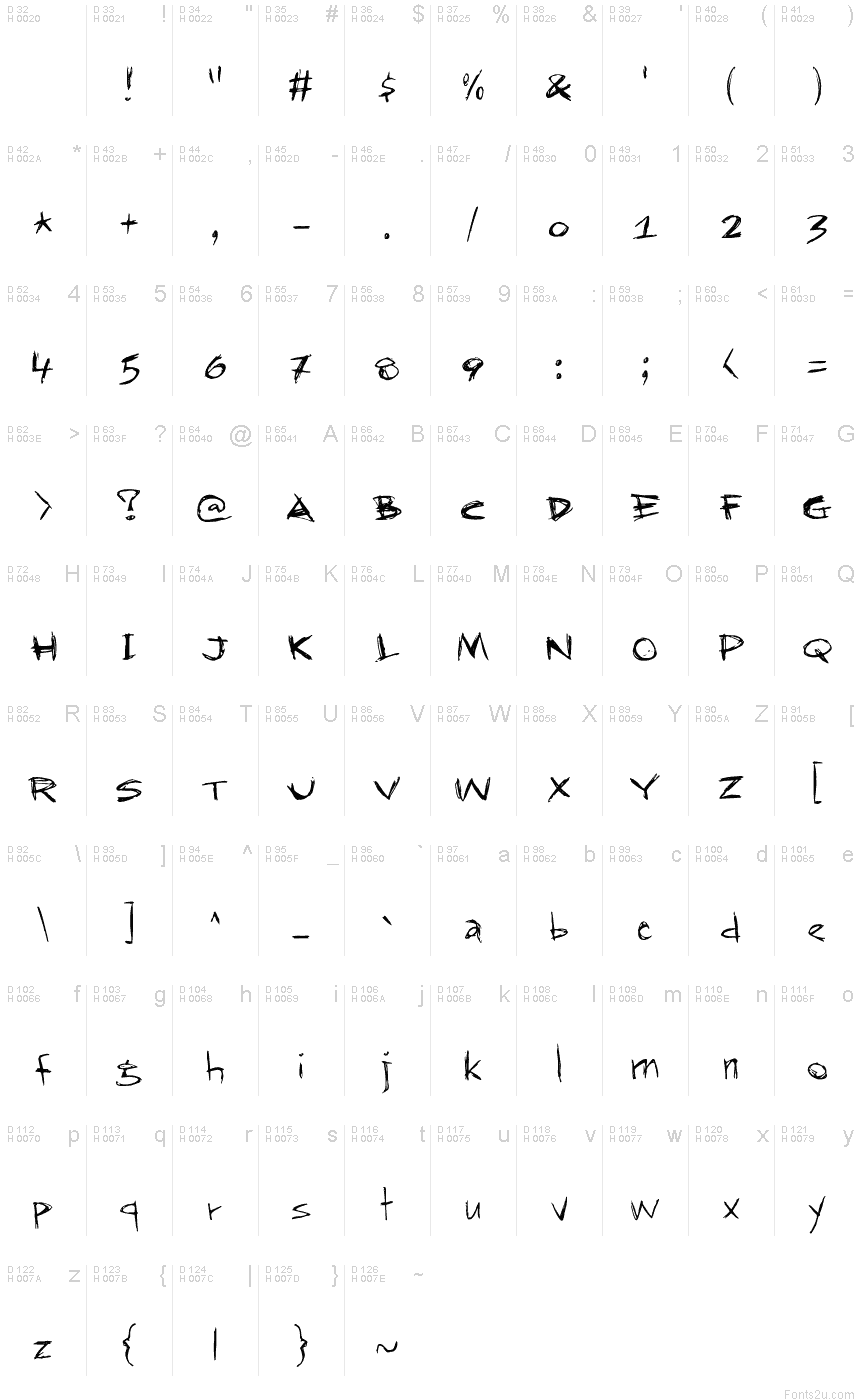
RapJack
RapJack by Jakob Fischer is a free trash font with a scraped, hand-cut look that feels raw and a little unruly. The letters lean on jagged strokes, torn-looking edges, and loose curves that make the whole design read like quick marker scrawls scratched into paper.
That makes it a natural fit for punk flyers, zine covers, horror title cards, band logos, and gritty poster headlines where a clean font would feel too polite. As a free font, RapJack works best in short, punchy settings, because those rough cuts and slashing strokes give even a few words a restless, handmade bite.